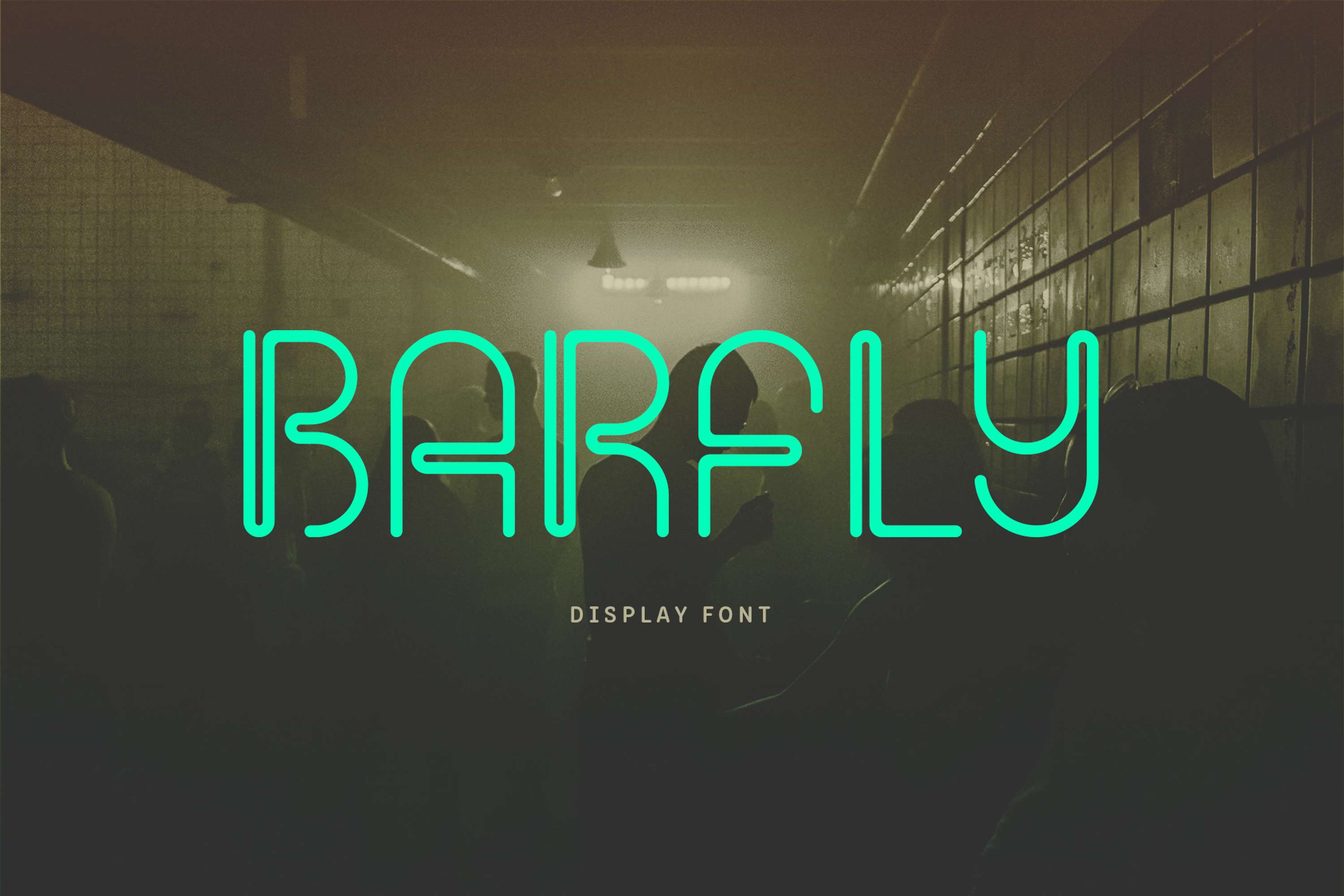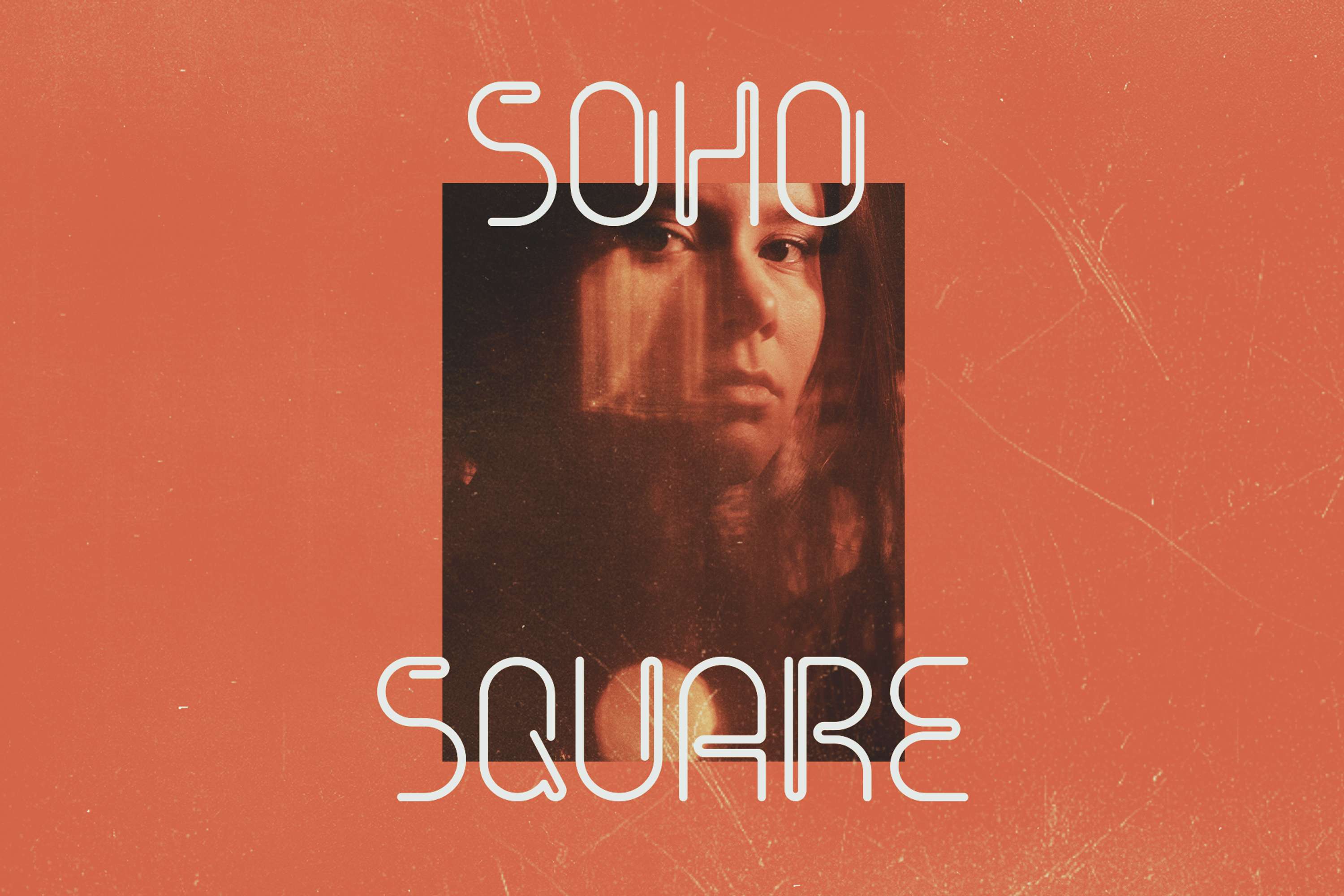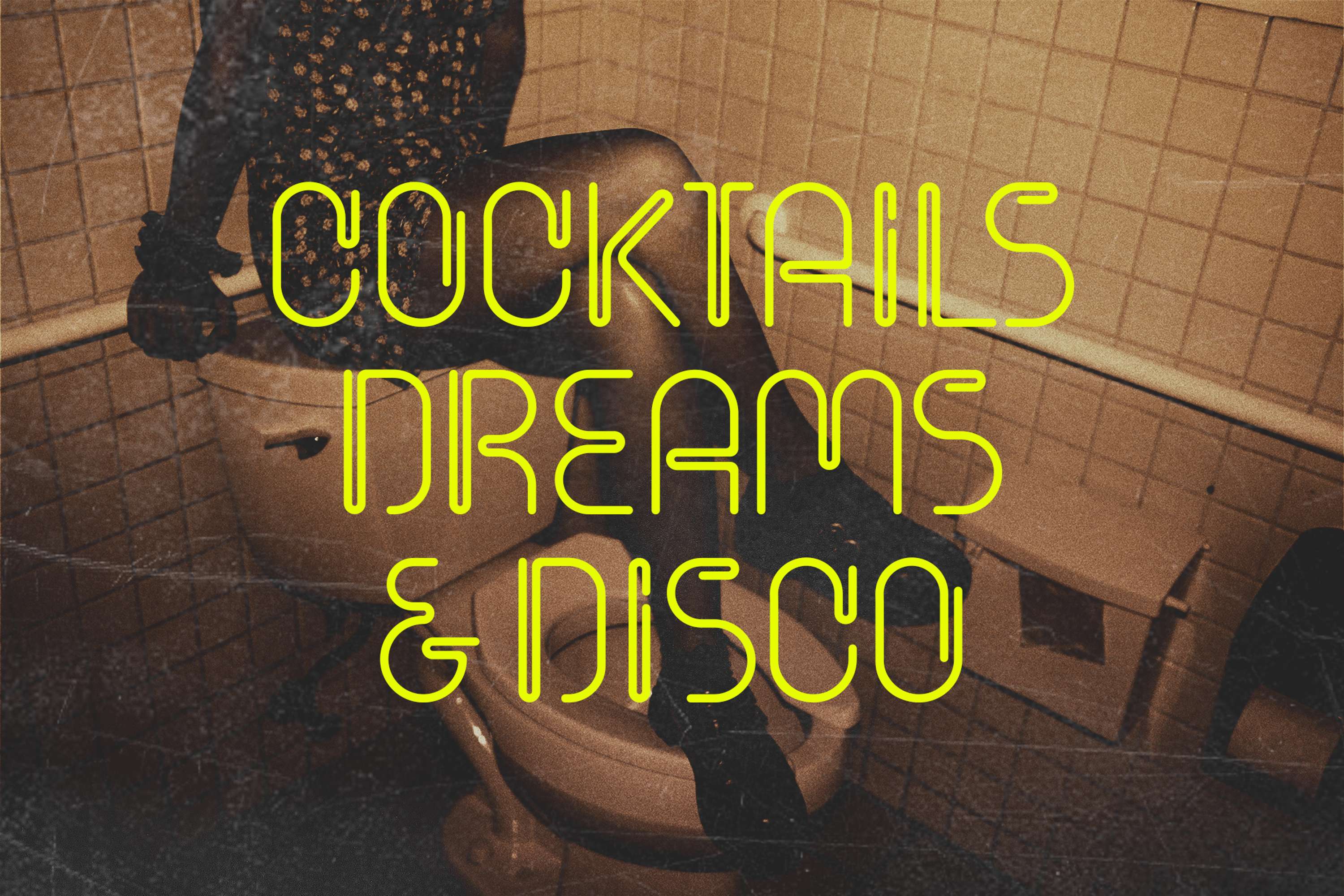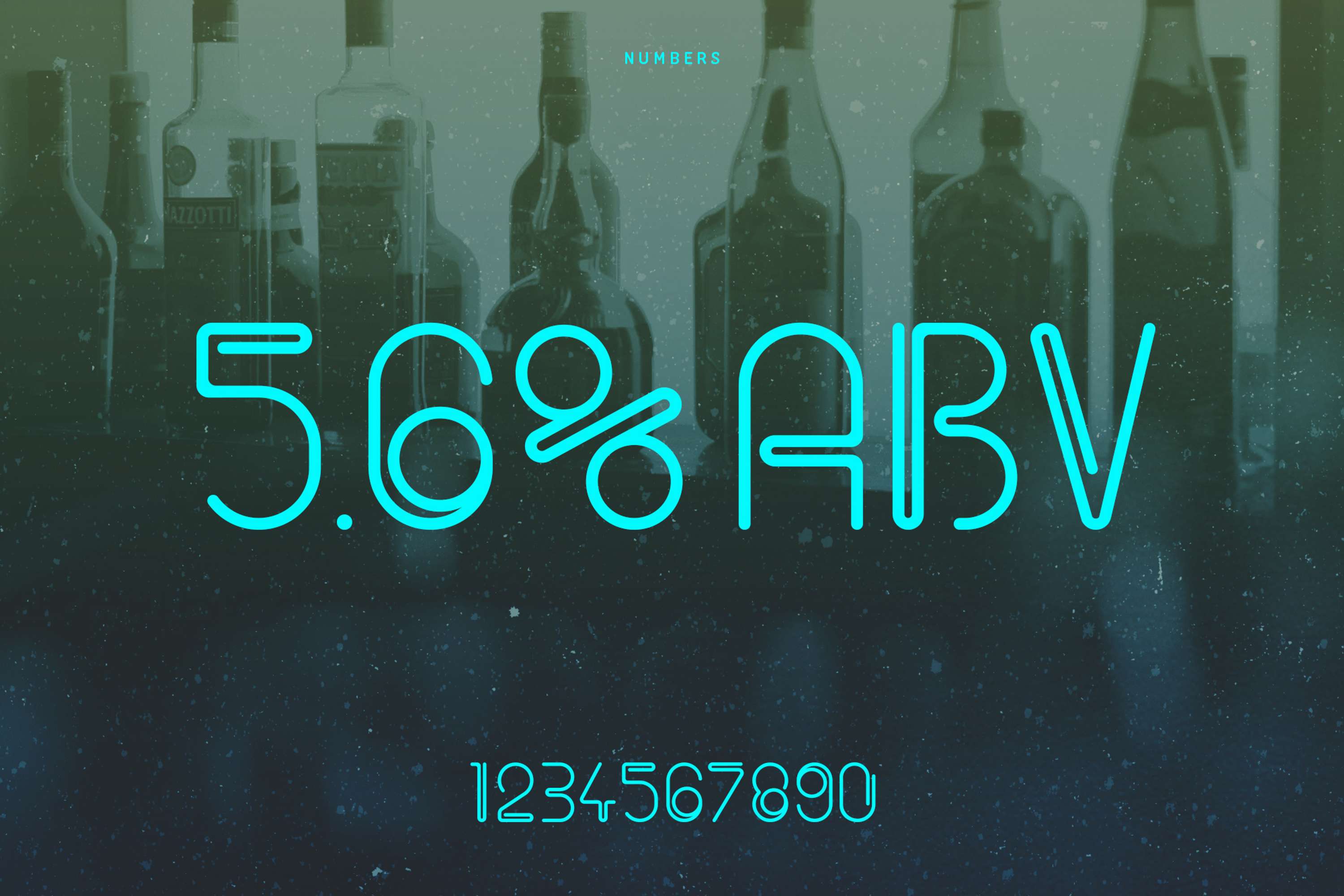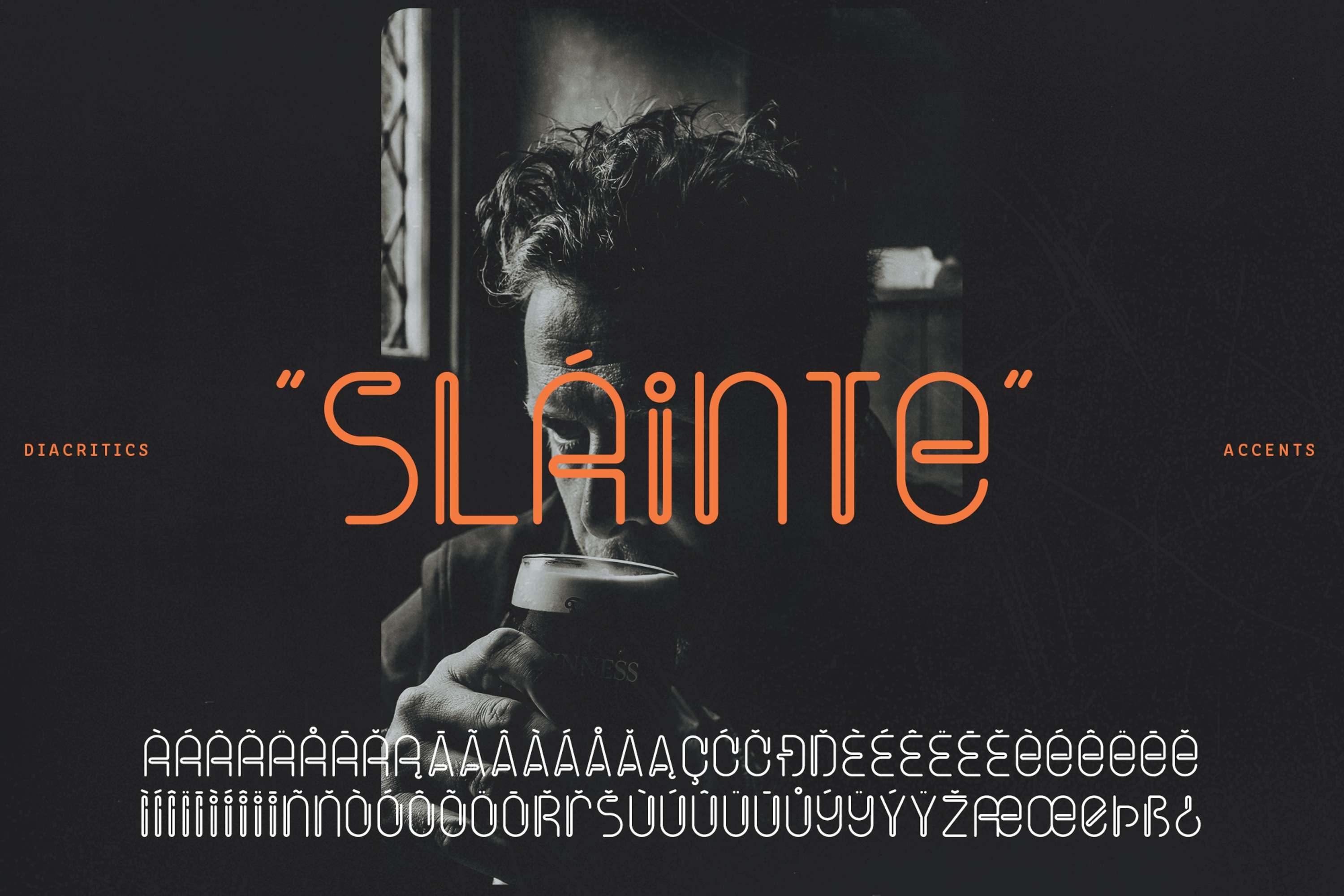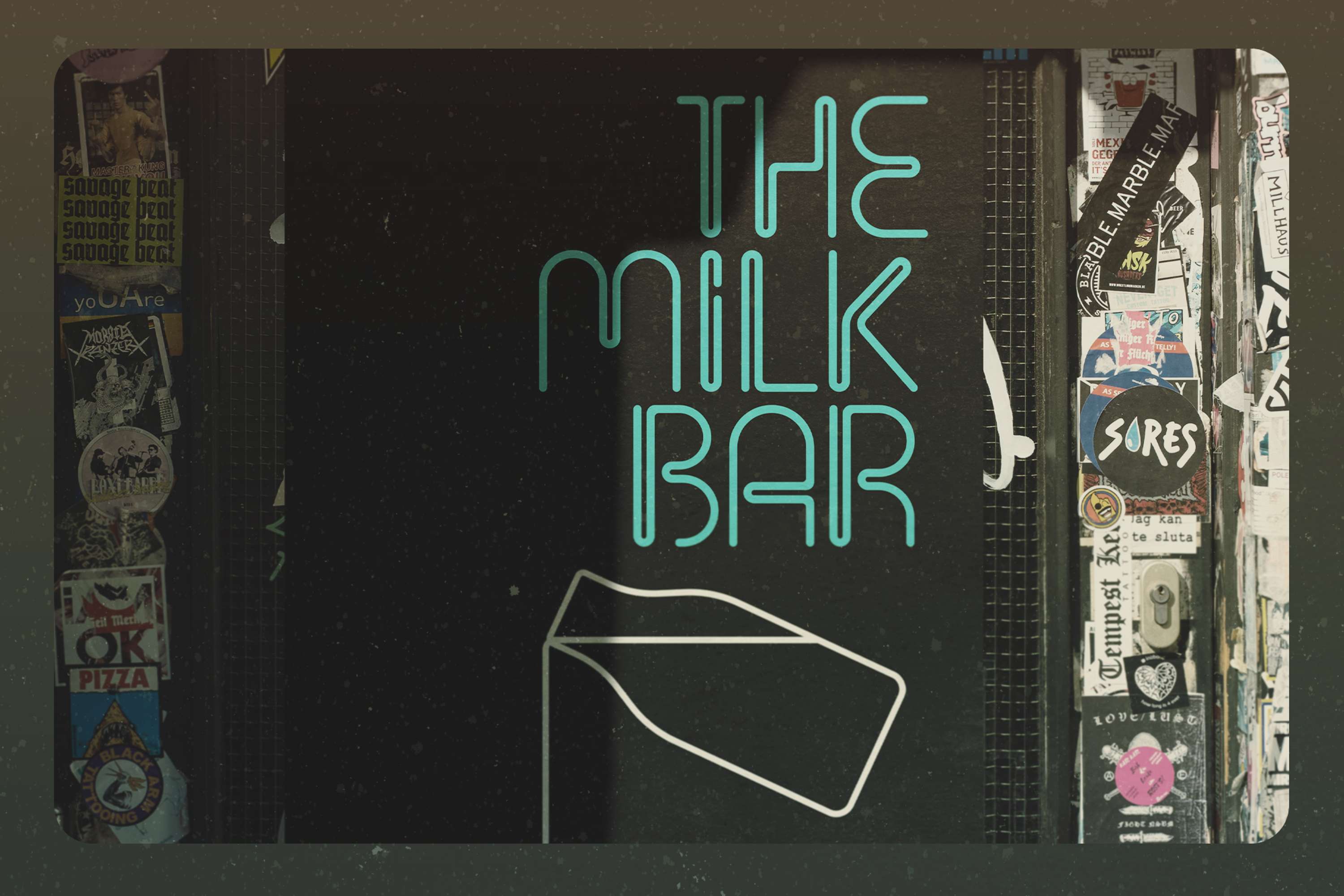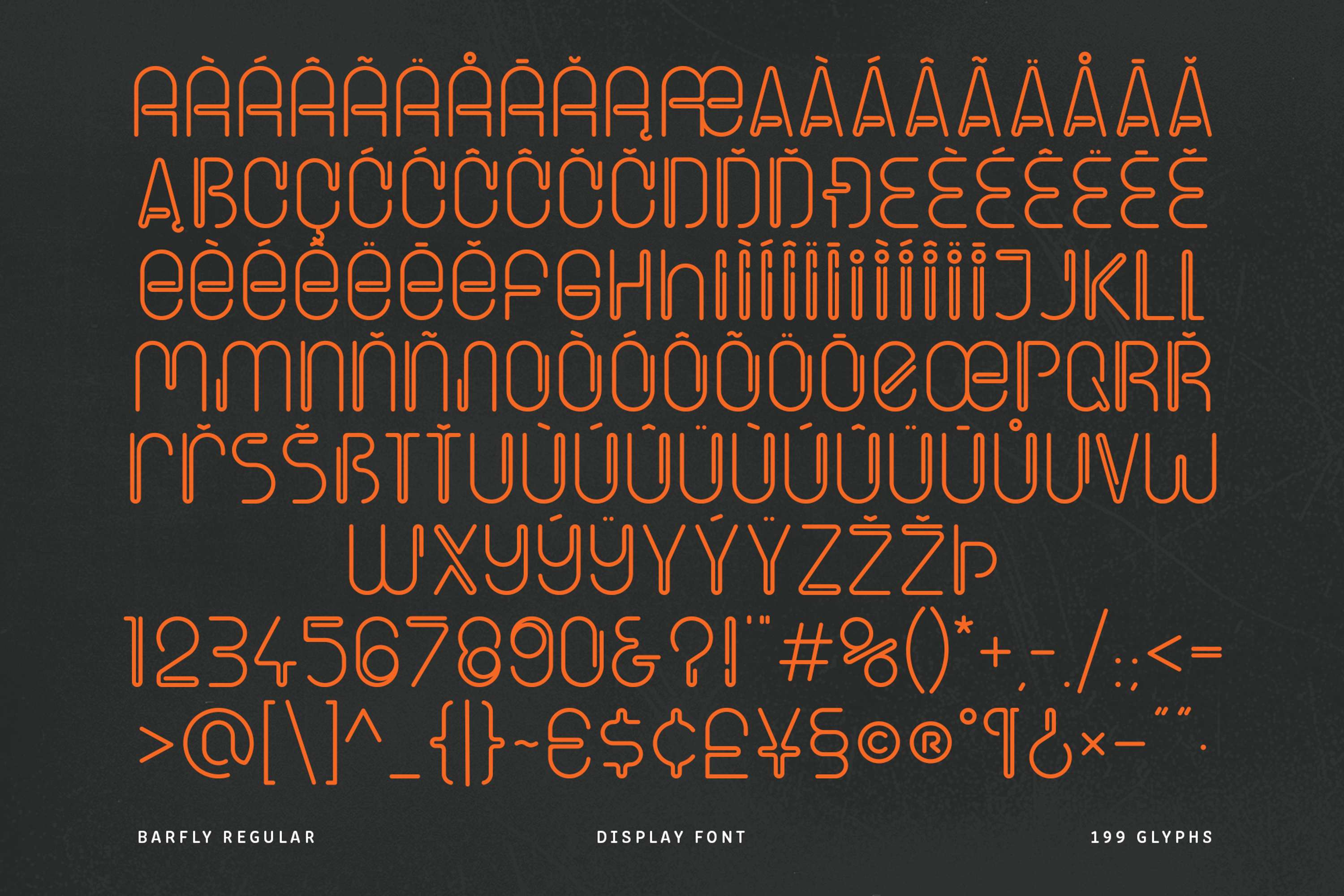
Barfly font
Barfly is a font inspired by the neon signs of bars and clubs in Soho and Camden Town in London. It is a distinctive display font designed for logos, bold editorial headlines and brand packaging.